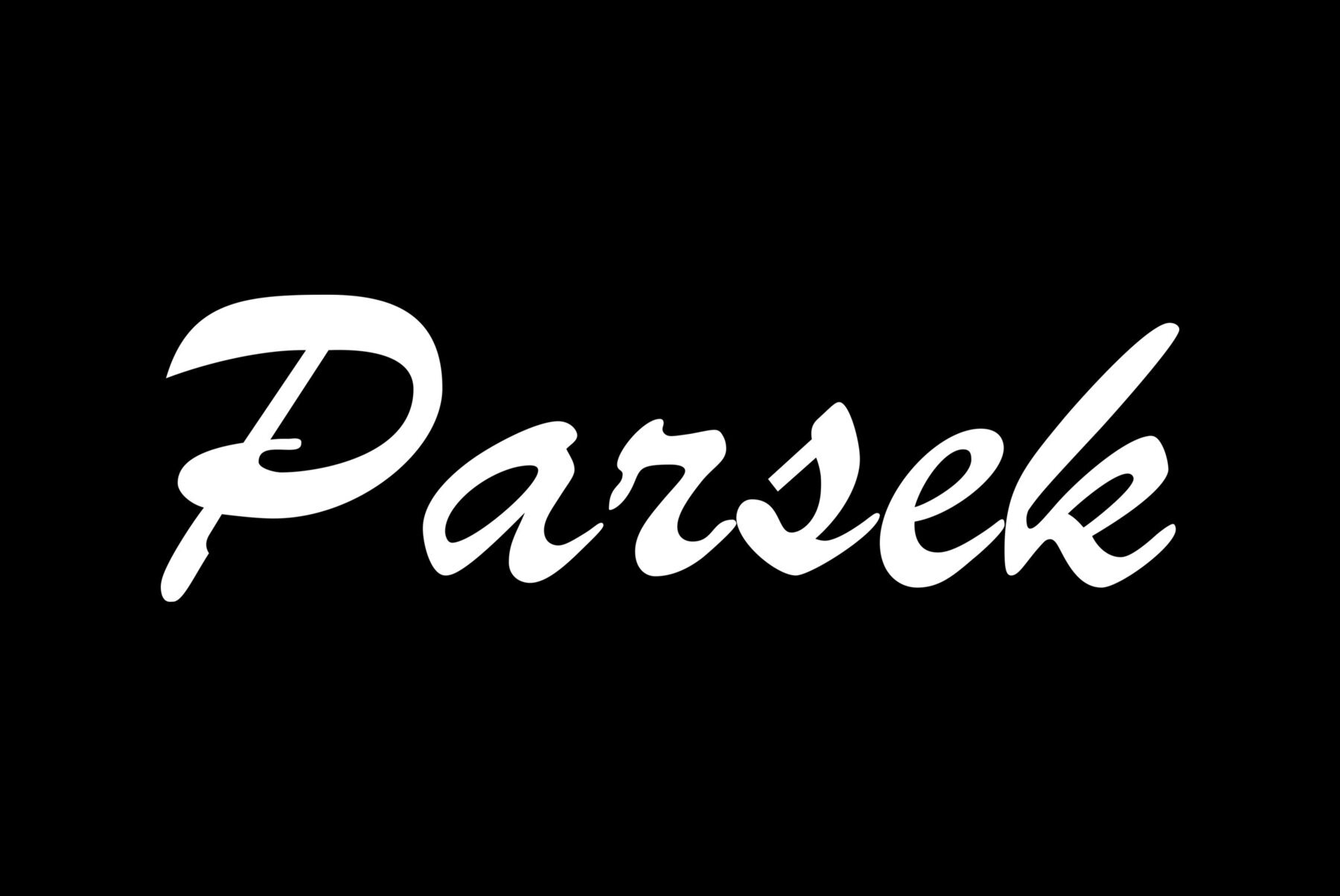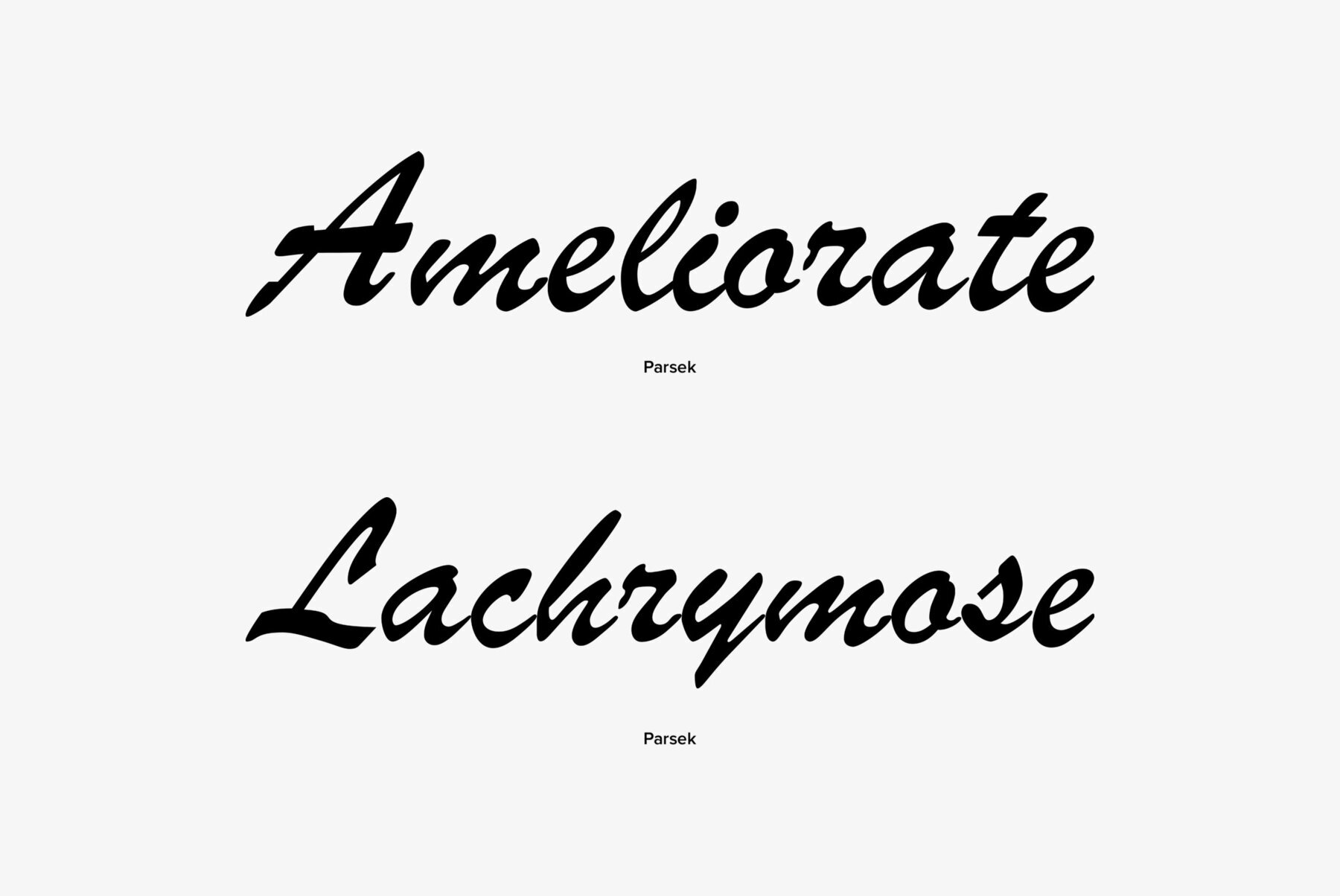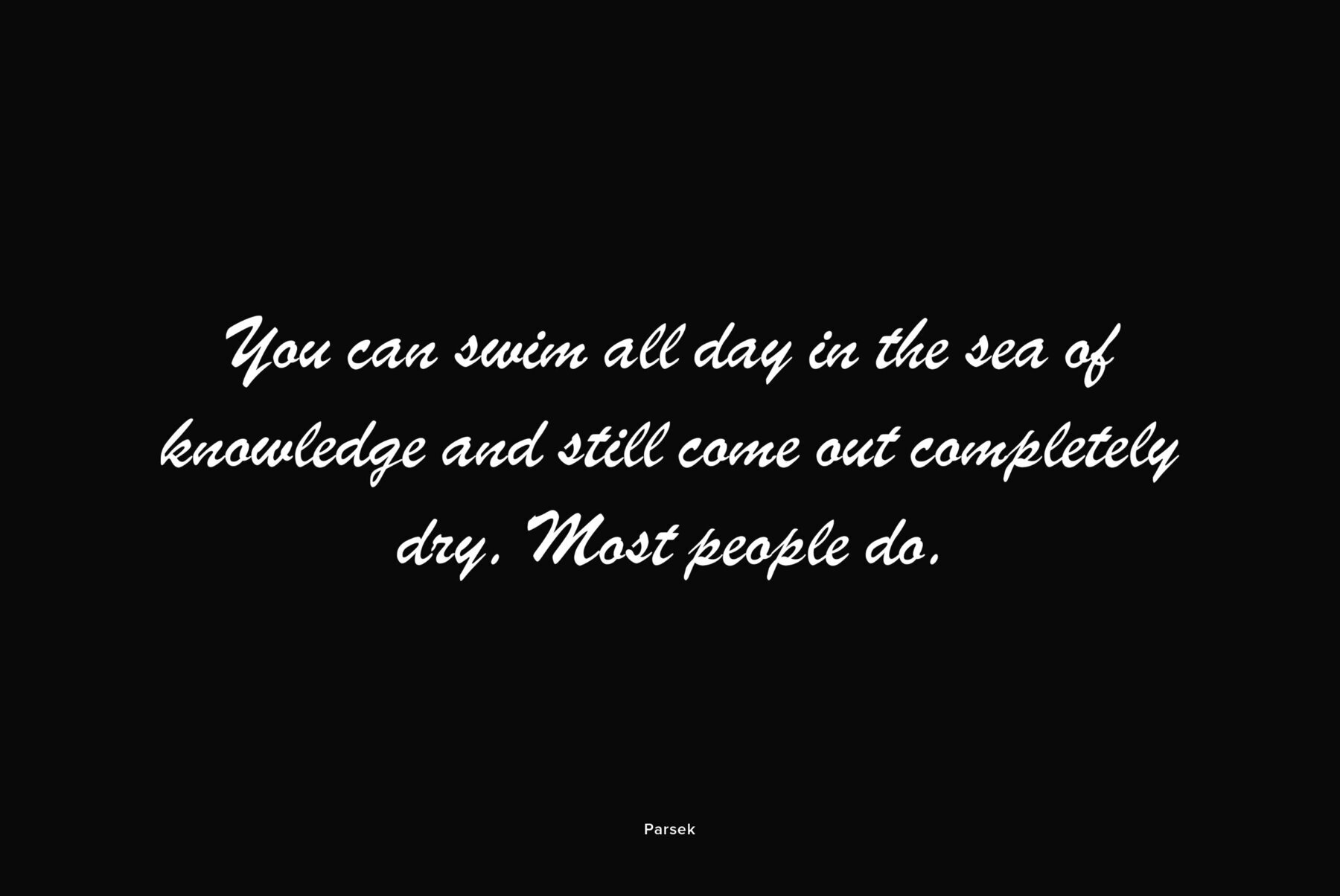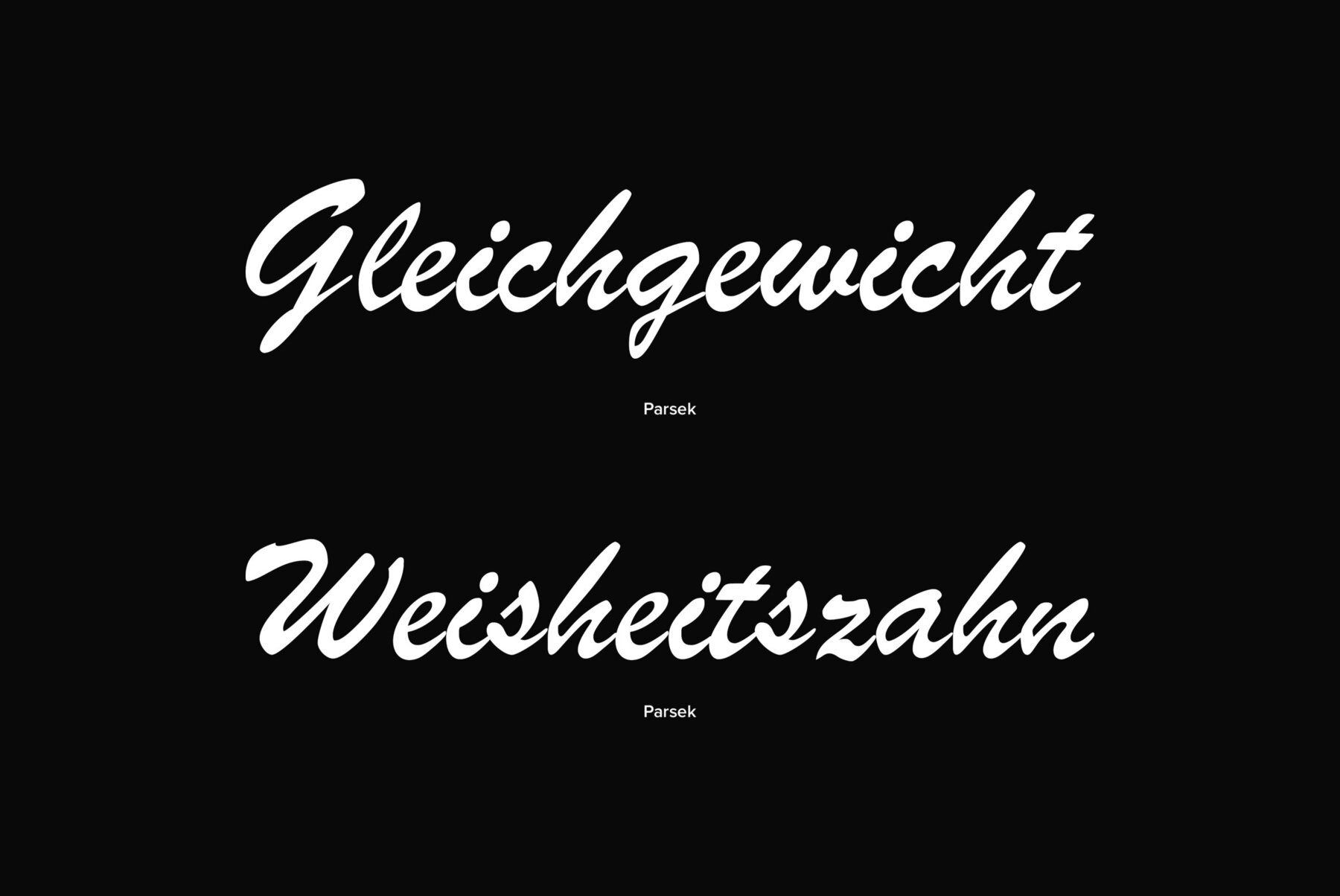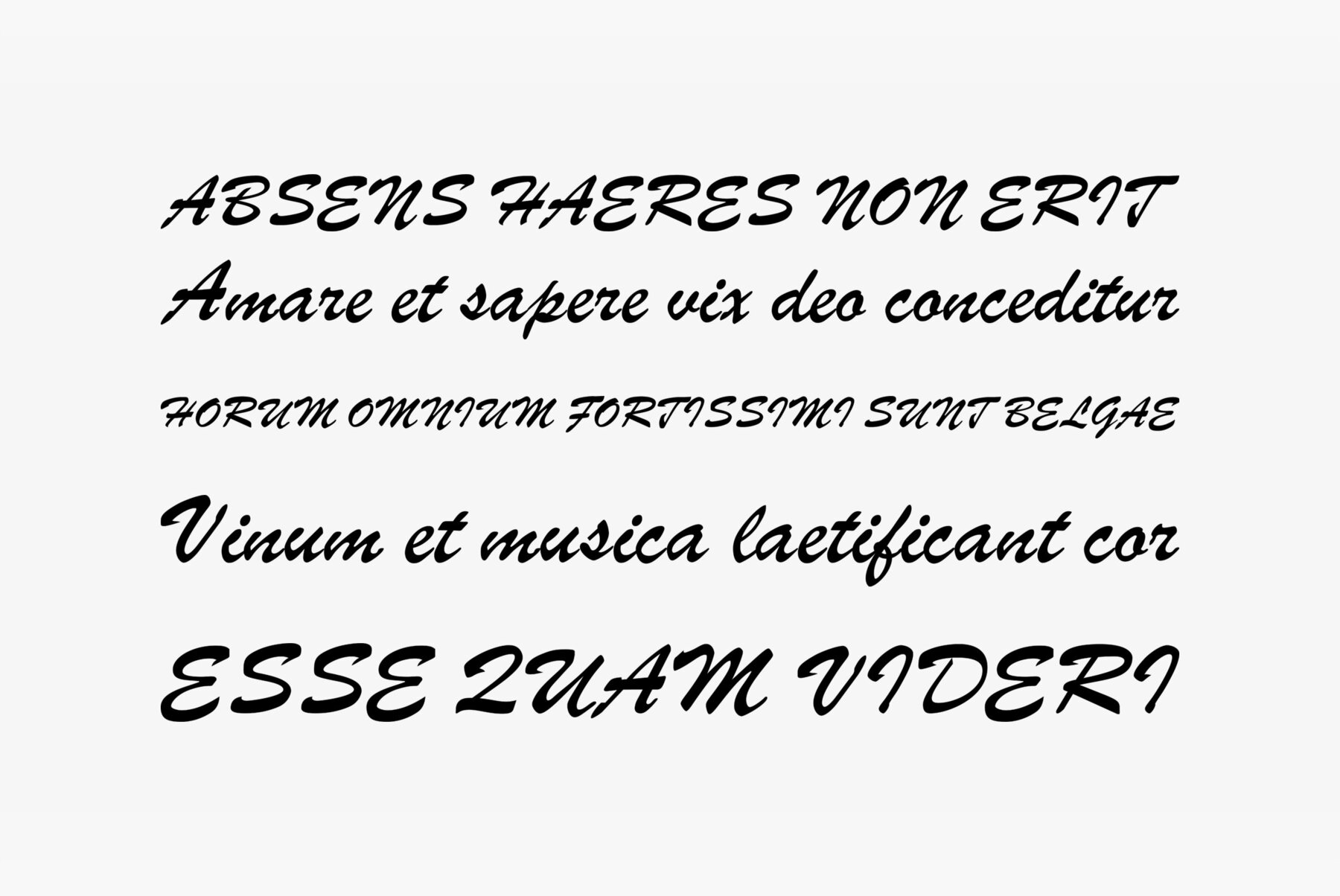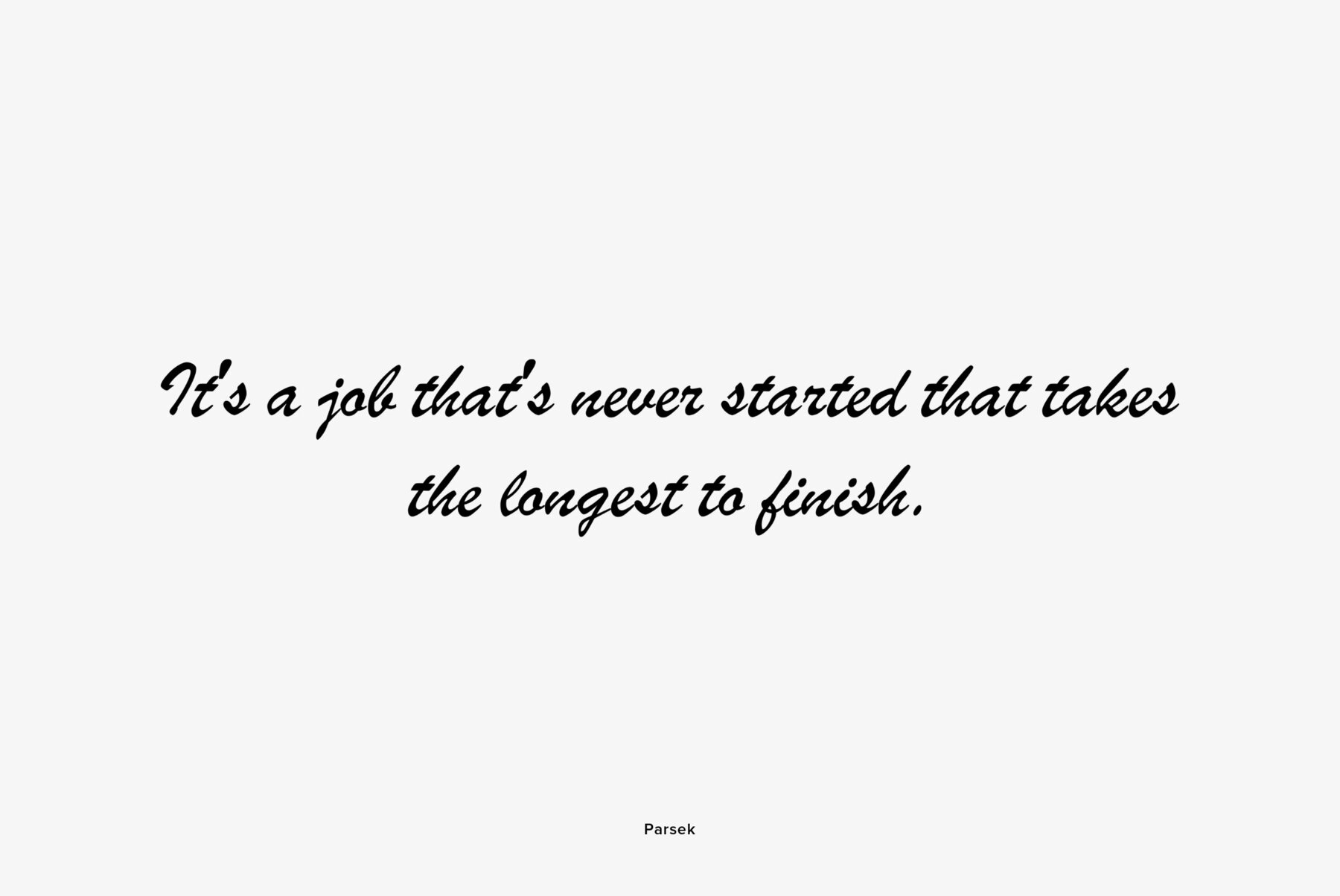
Designed at ParaType (ParaGraph) in 1990 by Elvira Slysh. Based on Brush Script of American Type Founders, 1972, by Robert E. Smith. ? popular and widely used script face. Designed to give the impression of letters written with a brush with coherent lowercase, giving a fairly black overall color. Ideal for display work and wherever an informal, handwritten style is required. For use in posters, newspapers and magazines, advertisements, signs and many other informal applications.